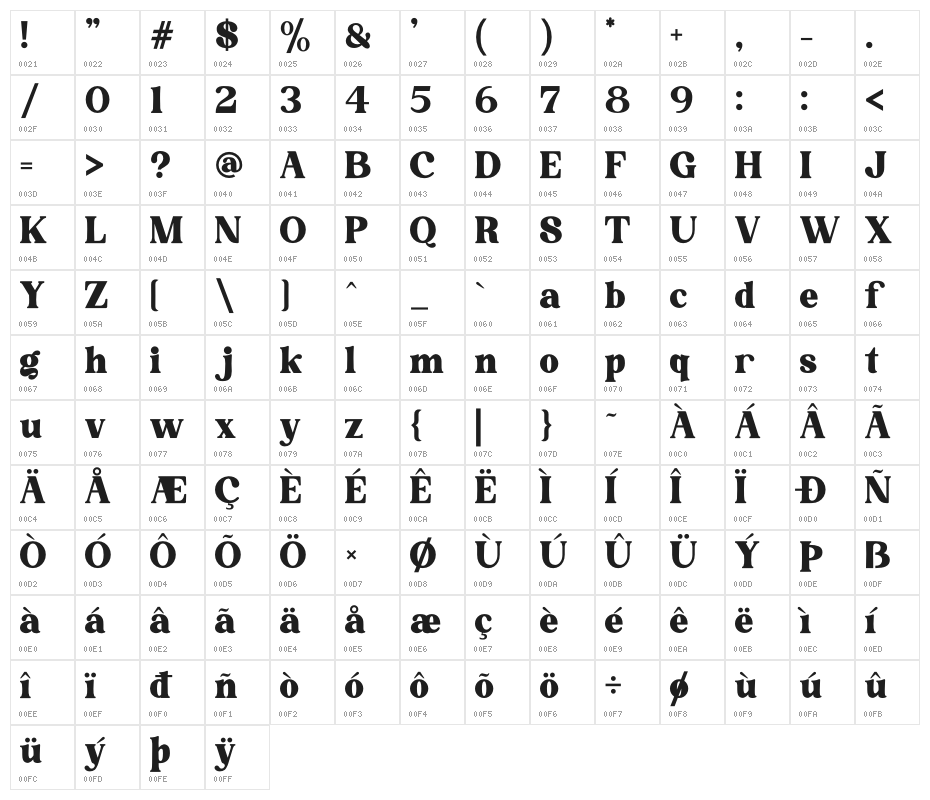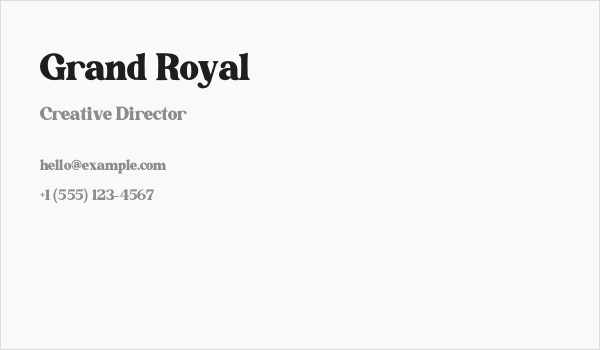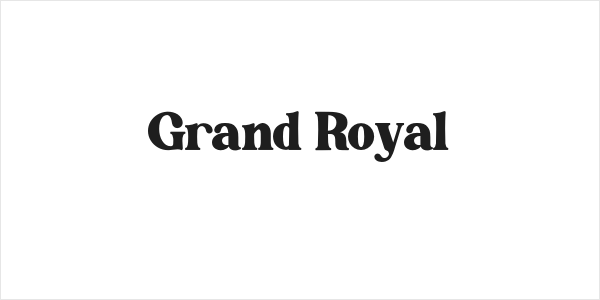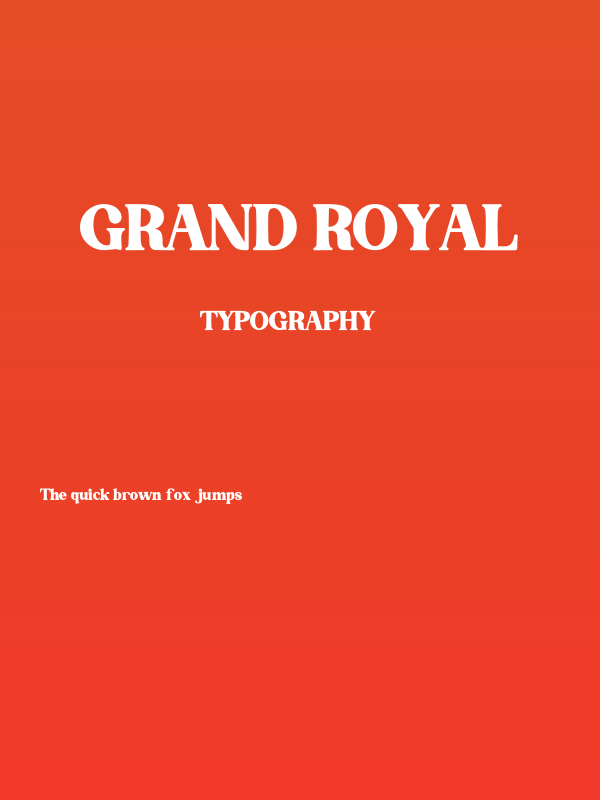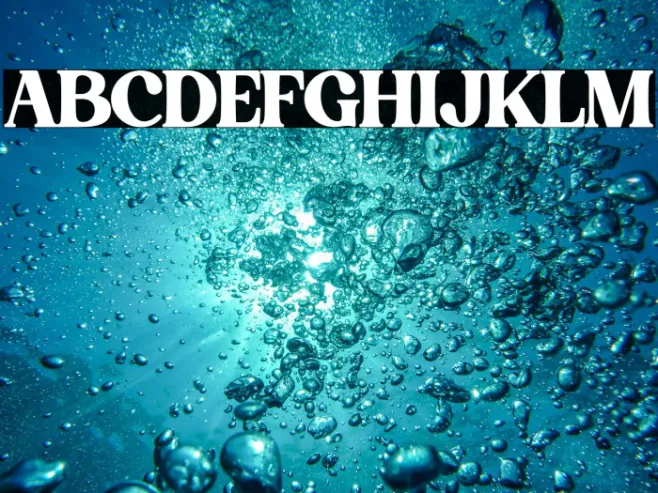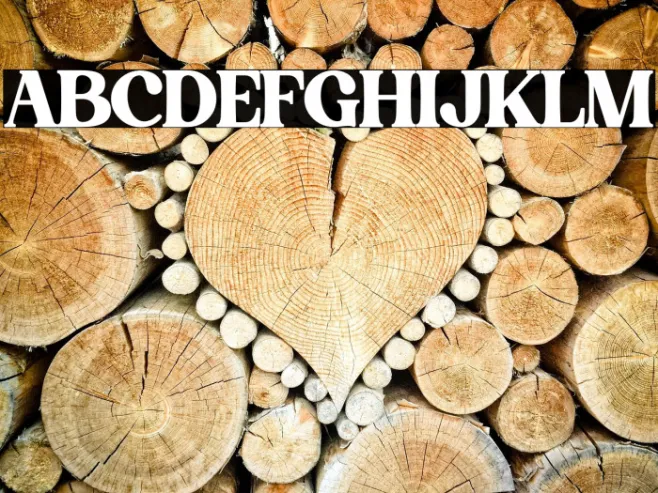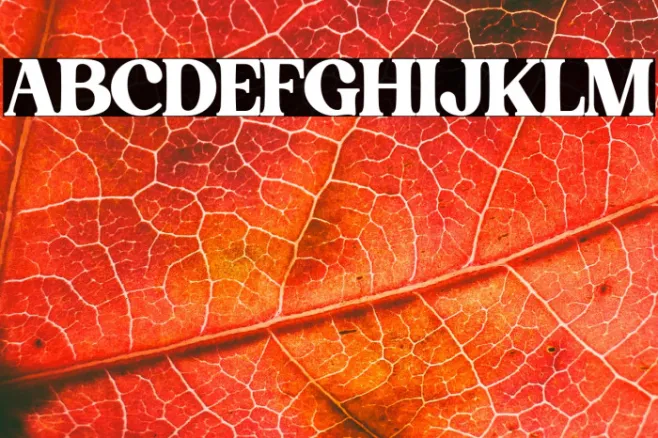
Grand Royal Font
Grand Royal Description
This font exudes a regal and authoritative presence, characterized by its bold and commanding serif style. The uppercase letters are robust and slightly condensed, giving a sense of strength and stability. The lowercase letters maintain a consistent weight, offering a harmonious balance between elegance and readability. The numerals are clear and distinct, ensuring legibility in various contexts. Special characters are crafted with attention to detail, enhancing the font's versatility. Overall, this font is designed to make a strong visual impact while maintaining a classic and sophisticated aesthetic.
| Proposed Projects | Ideal for projects requiring a strong, classic presence such as book covers, formal invitations, branding for luxury products, or editorial headlines. |